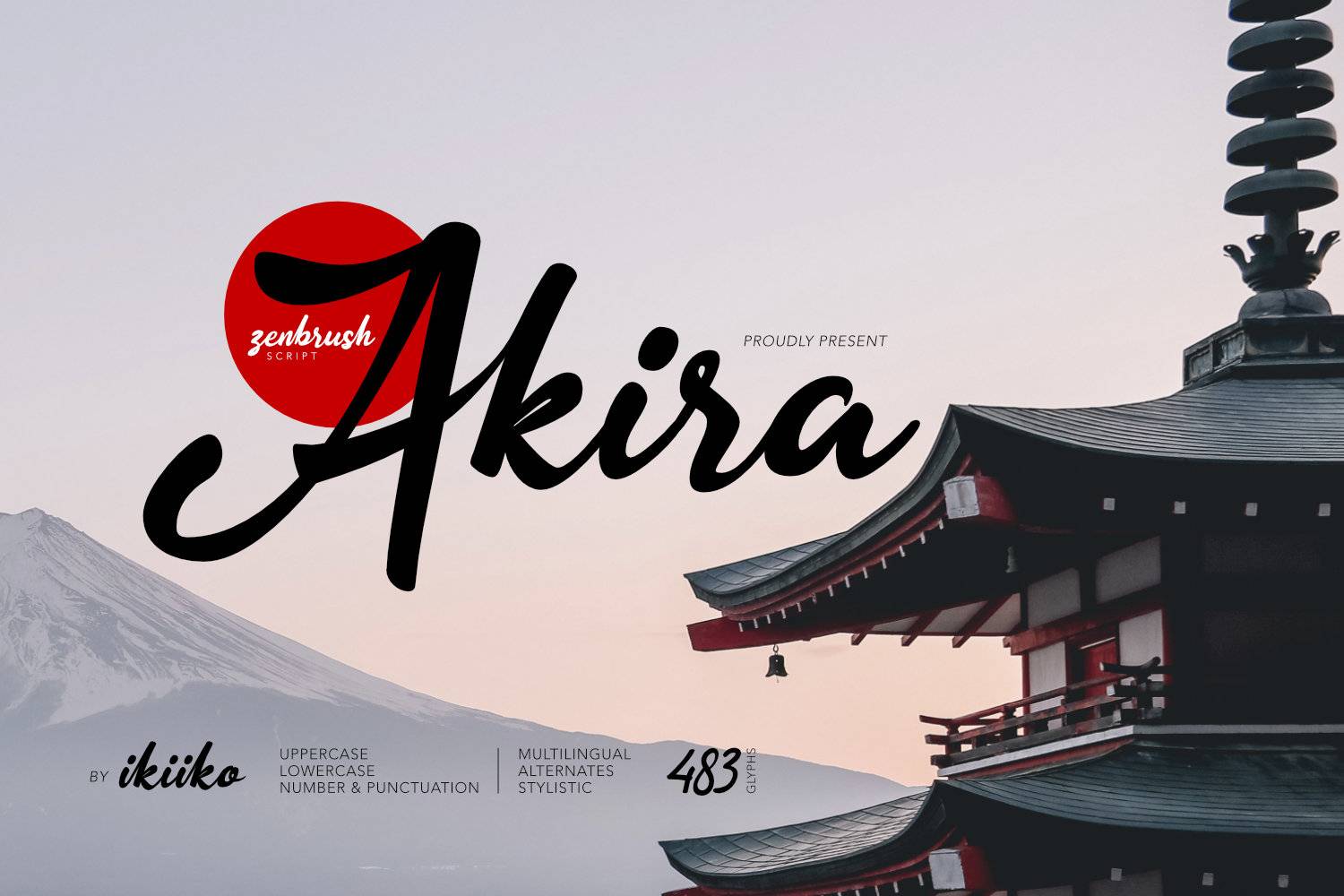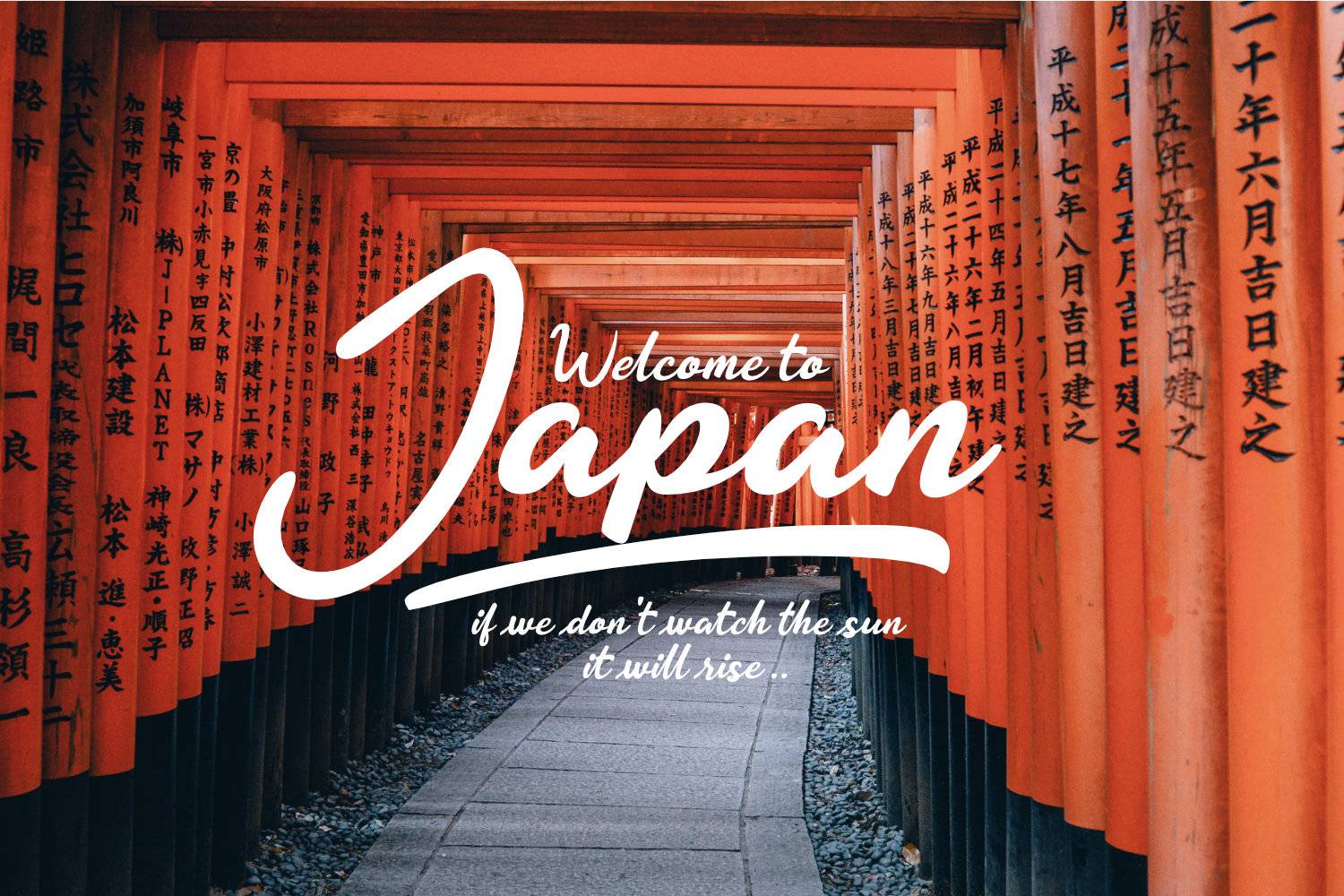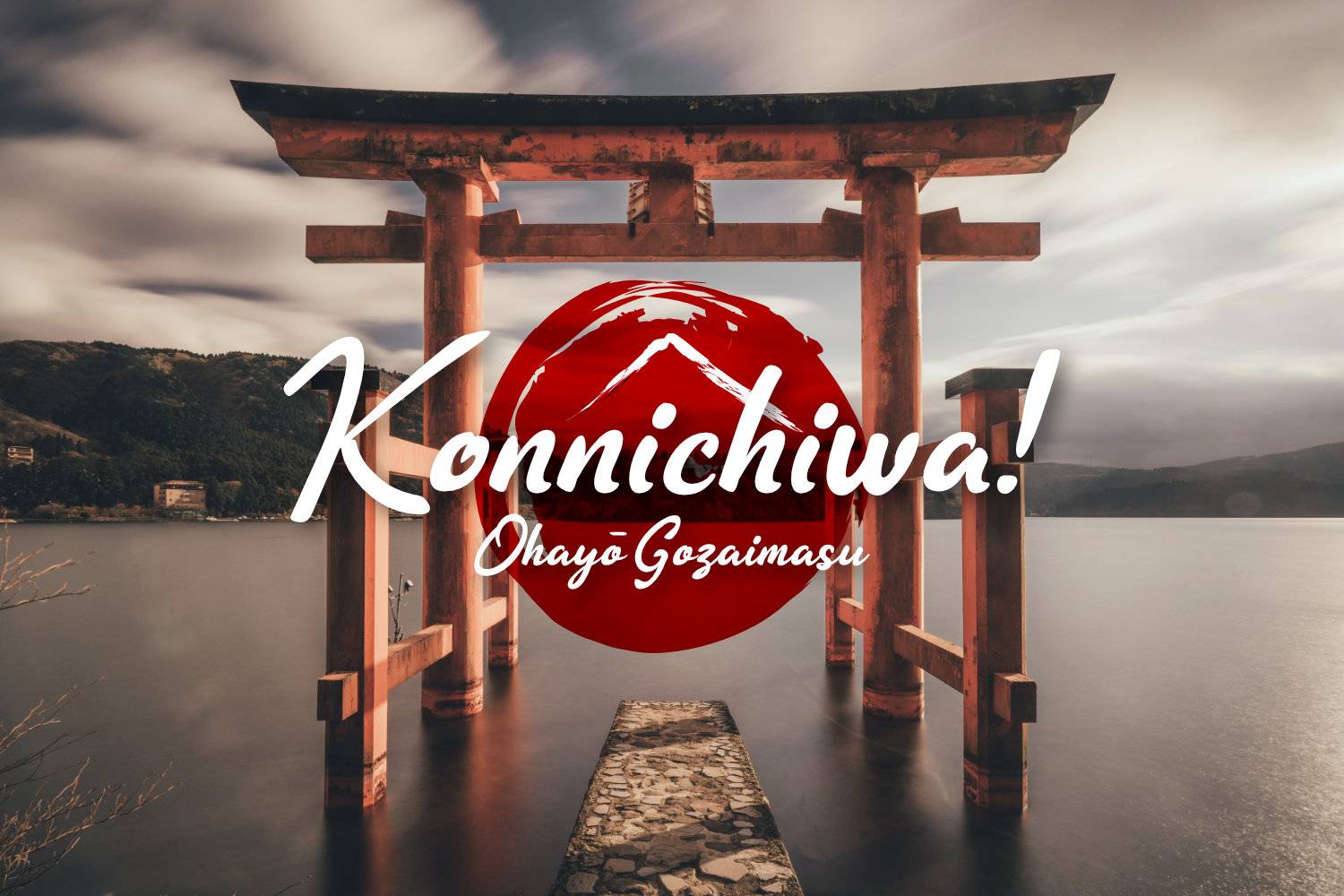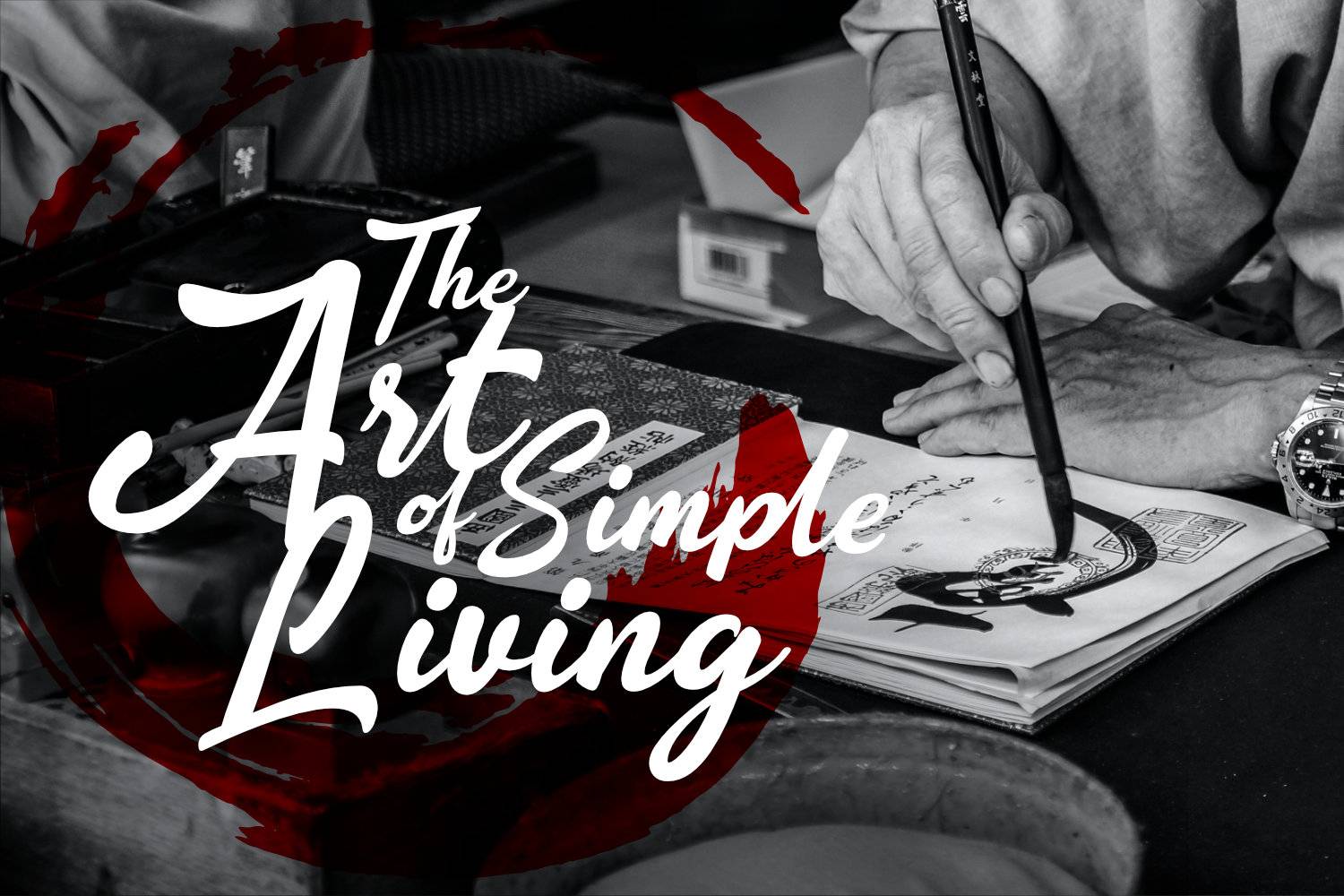
Akira is a lively script font with smooth, flowing strokes that convey a friendly and dynamic feel. Its medium weight and slightly condensed letterforms make it versatile for casual branding, invitations, and headlines that need a personal, handwritten touch. This font works best where a warm, engaging, and approachable style is desired.
| Font family | Akira Font |
| Release date | 2021-12-17 |
| Designer | Wahyu Eka Prasetya, Andhika Pradana |